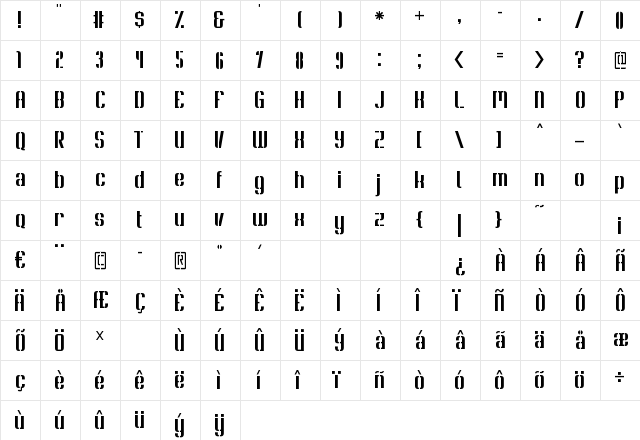
Soupertrouper Stencil
| Style | Stencil |
Design Context for Soupertrouper Typeface
Soupertrouper has the rough pragmatism of spray-painted stencil signage, adding a raw, street-level authenticity to designs.
A strong choice for packaging that needs edge, warehouse aesthetics, and rough-and-ready visual identities.
Pro Tip: Use Soupertrouper at large sizes on packaging, posters, or apparel where the stencil cutaways read clearly. Avoid small sizes where those gaps become visual noise.